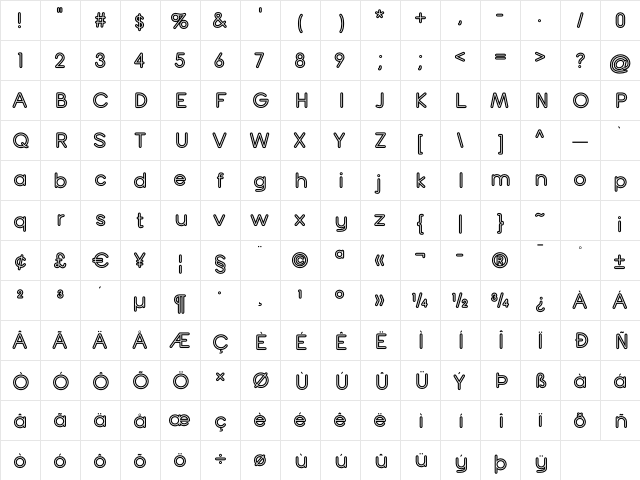
Turn Table OT Regular
| Foundry | BV Fonts |
| Designer | Jess Latham |
Design Context for Turn Table OT Typeface
Turn Table OT takes a measured approach to typography — its balanced proportions and neutral character make it a reliable workhorse for both digital and print work.